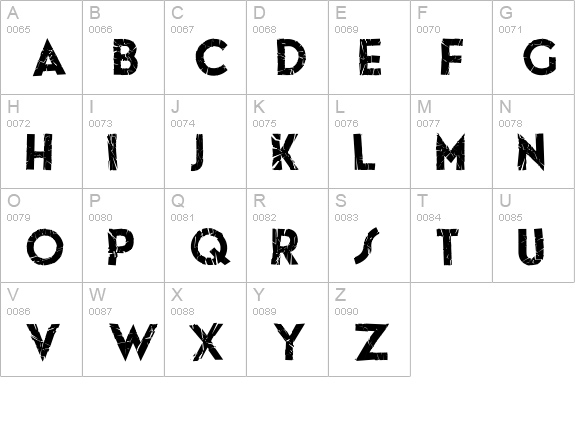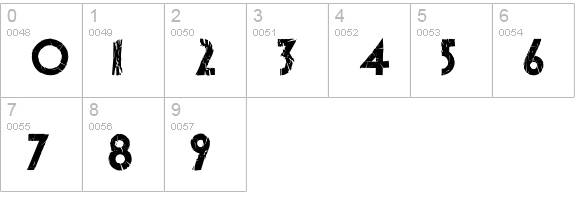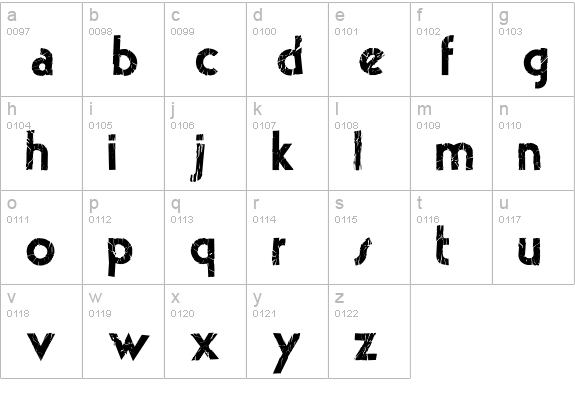
theLUXX Crashed Font Details
The LUXX Crashed font is a unique and edgy typeface that exudes a sense of chaos and rebellion. Its jagged and broken letterforms give it a distressed and rugged appearance, perfect for adding a touch of grunge to your designs. Despite its rough exterior, the LUXX Crashed font maintains a bold and impactful presence that commands attention. What sets this font apart is that it is not only visually striking but also completely free to download. You can easily get your hands on the LUXX Crashed font at FontsMarket.com, where it is available for instant download at no cost. Embrace the rebellious spirit of this font and explore its creative possibilities in your projects today. Unleash the power of LUXX Crashed to make a statement and stand out from the crowd.